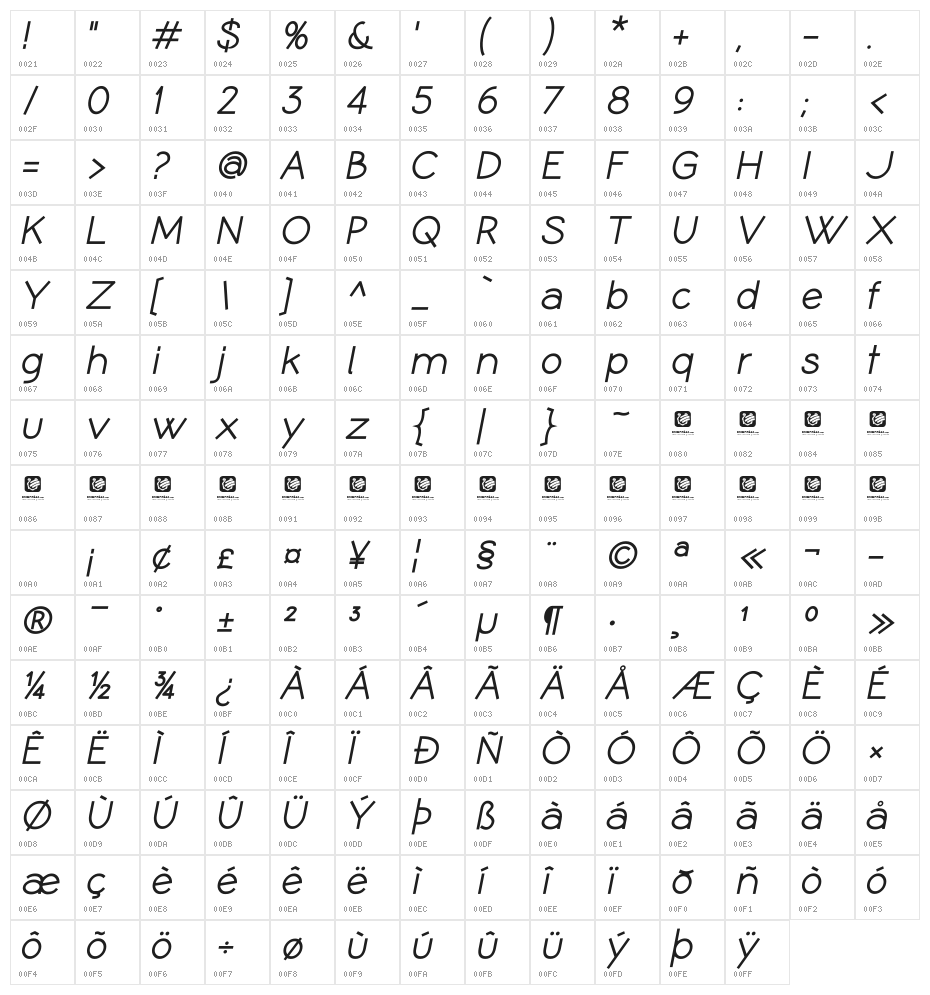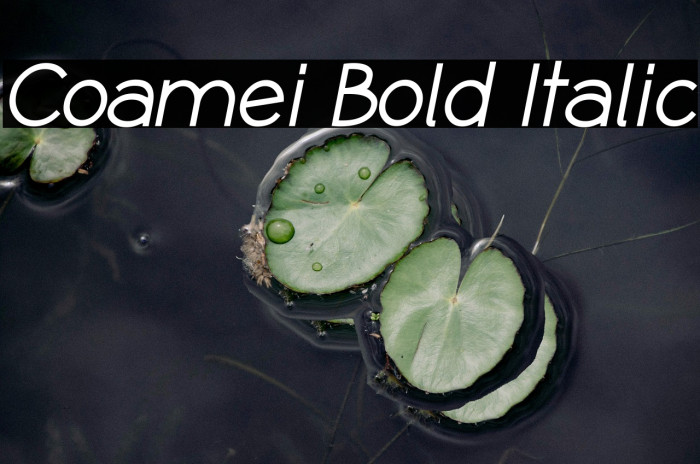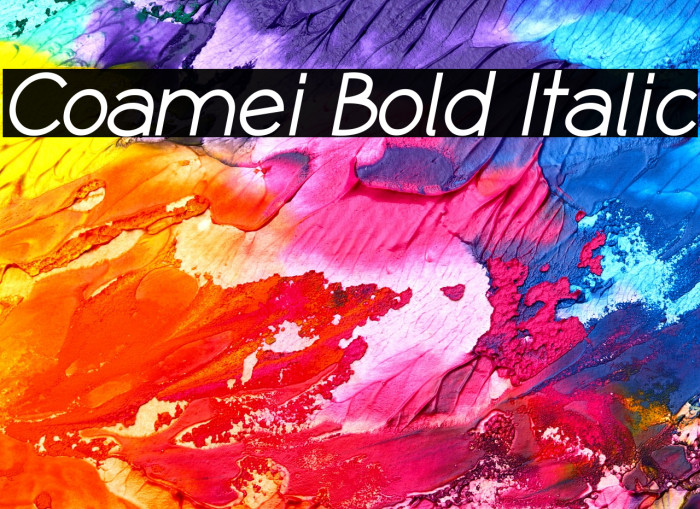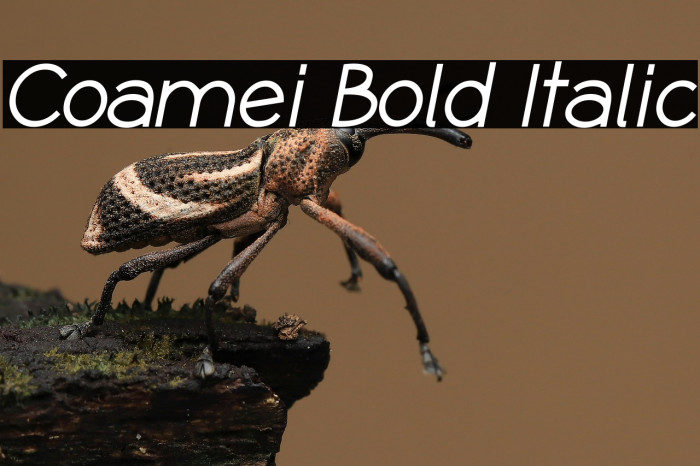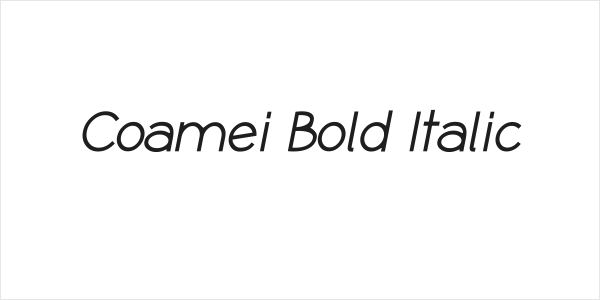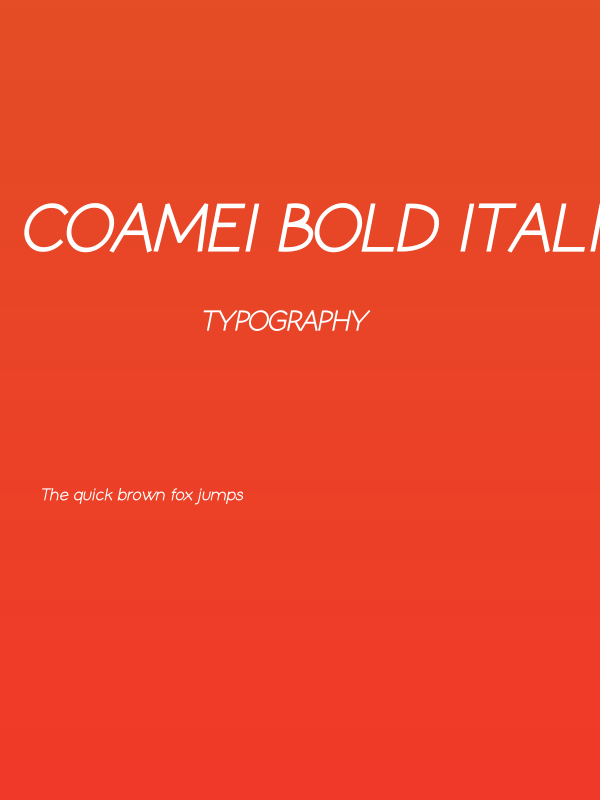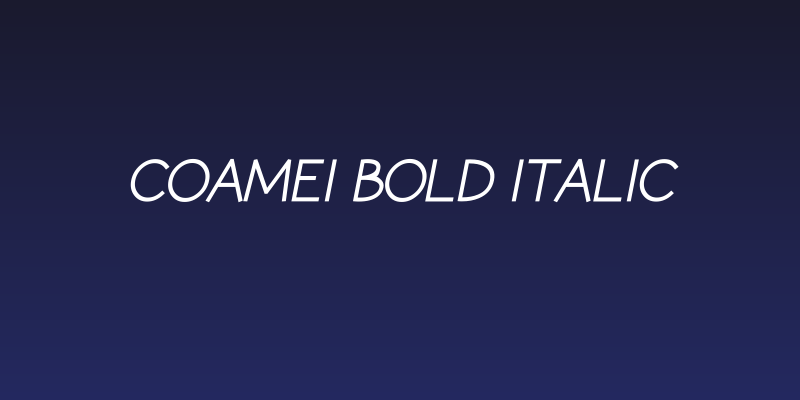
Coamei Bold Italic Font
Coamei Bold Italic Description
This font features a bold and italicized style, combining a modern aesthetic with a sleek and streamlined appearance. The characters are slightly slanted, adding a dynamic and forward-moving feel. The strokes are consistent in weight, providing a uniform look across all characters. The font maintains a clean and professional appearance, making it suitable for various design purposes. Its geometric shapes and smooth curves contribute to a contemporary and polished look, ideal for projects that require a touch of elegance and modernity.
| Proposed Projects | Ideal for branding, advertising, headlines, and digital media where a modern and dynamic look is desired. |